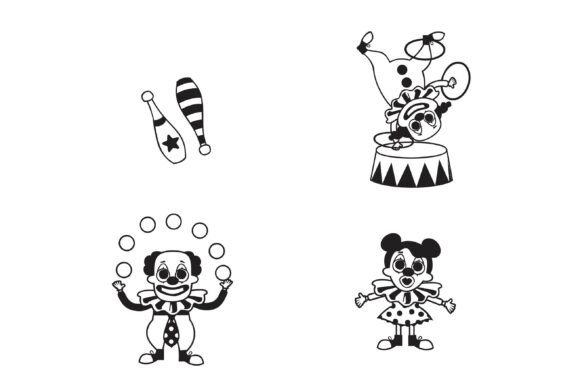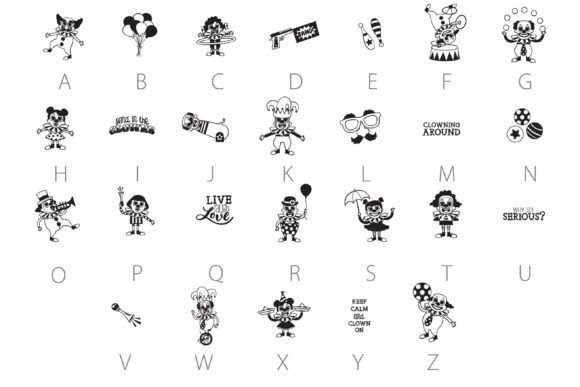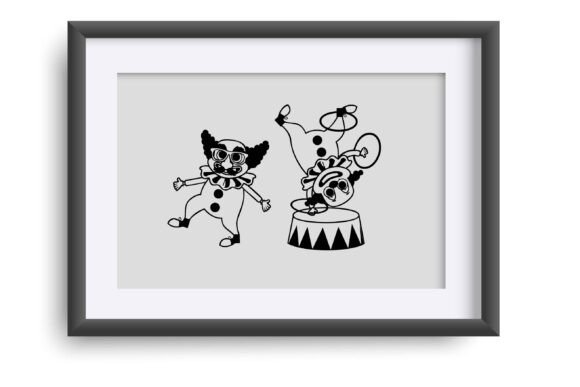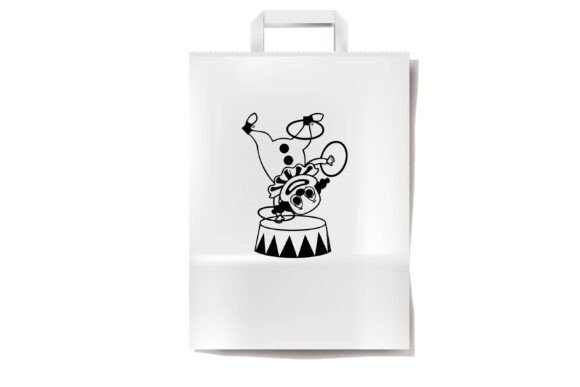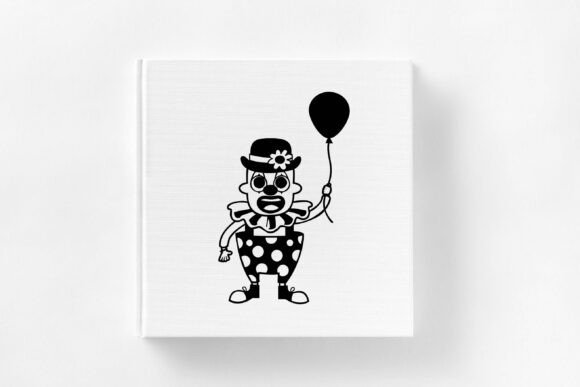
Introduction to Jolly Circus Clowns Font Font
Fonts play a crucial role in design, and the Jolly Circus Clowns Font font is a typeface that brings both character and versatility to any project. Whether you’re working on a branding project, a website, or a print design, the Jolly Circus Clowns Font font offers a unique style that can elevate your work.
Say hello to the Jolly Circus Clowns Dingbat Font, featuring adorable, circus clowns Dingbat fonts are a designerβs secret weapon that brings flair, fun, and functionality to any creative work.
Key Features of Jolly Circus Clowns Font Font
Why Choose Jolly Circus Clowns Font Font?
The Jolly Circus Clowns Font font is more than just a typeface β it’s a design tool that helps you communicate your message with style and clarity. Its unique character set and versatile design make it suitable for a wide range of applications, from elegant invitations to bold headlines.
With its carefully crafted letterforms and balanced proportions, the Jolly Circus Clowns Font font ensures readability and visual appeal across all mediums.
What makes Jolly Circus Clowns Font font special?
The Jolly Circus Clowns Font font stands out with its unique design, exceptional readability, and versatility across various design applications.